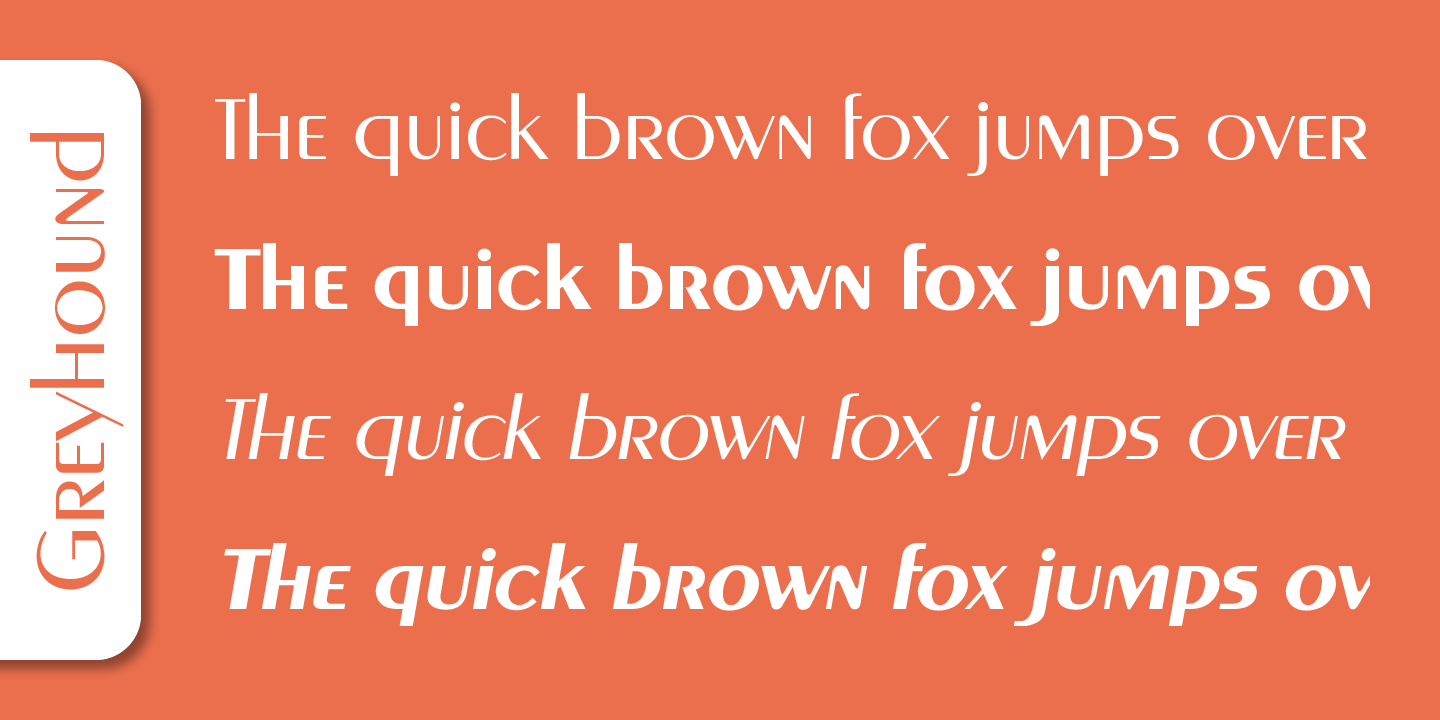
Greyhound Font is perfect for transportation company branding, racing track signage, speed-focused automotive marketing, athletic performance brands, travel agency materials, racing event promotions, sports timing systems, express delivery services, competitive sports branding, marathon event materials, velocity-based product packaging, and high-performance marketing campaigns. This dynamic typeface brings aerodynamic elegance to projects requiring speed, grace, and athletic excellence.
What makes Greyhound Font so exciting is its remarkable ability to capture the sleek grace and explosive speed of the world's fastest dog through elegantly streamlined letterforms that embody pure athletic performance. The font features aerodynamically inspired characters with flowing lines and forward momentum that mirror the greyhound's legendary racing form and natural elegance. Its swift character conveys speed and agility while maintaining exceptional readability at high velocities, making it perfect for brands seeking to communicate performance, efficiency, and the graceful power of athletic excellence with authentic racing heritage.
The Greyhound Font family includes multiple racing weights and speed-optimized variations that showcase its athletic character while providing comprehensive design flexibility for various performance-oriented applications. Each variant maintains the original's swift elegance while offering extensive options for creating dynamic typographic compositions that celebrate speed and athletic achievement.
Whether you're developing sports brand identities, creating racing event materials, or designing performance-focused communications, Greyhound Font Free Download offers the perfect combination of athletic grace and aerodynamic functionality. This exceptional typeface brings authentic racing spirit to design projects, making it an indispensable choice for designers seeking typography that effectively communicates speed, elegance, and the thrilling pursuit of athletic excellence with genuine competitive energy.